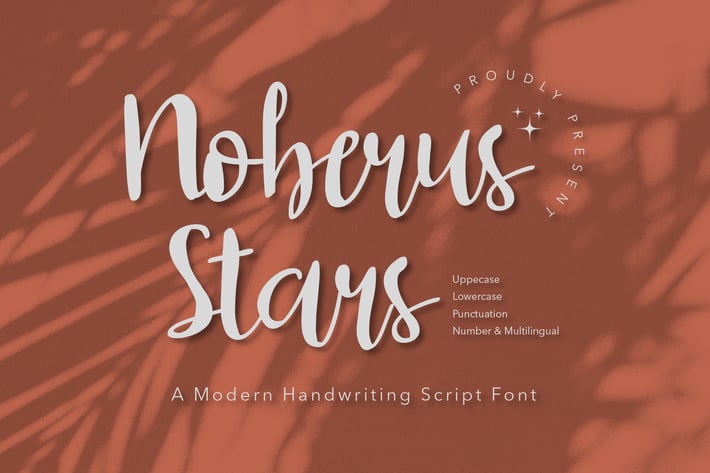
Noberus Stars - Modern Script fonts
Noberus Stars is a Modern script font, will be suitable for any projects such as logo’s, branding projects, homeware designs, product packaging, mugs, quotes, posters, shopping bags, t-shirts, book covers, name card, invitation cards, greeting cards, label, photography, watermark, special events, and all your other lovely projects that need beautiful handwriting taste.
- Uppercase & Lowercase
- Numerals
- Punctuations (OpenType Standard)
- Accents (Multilingual Characters)